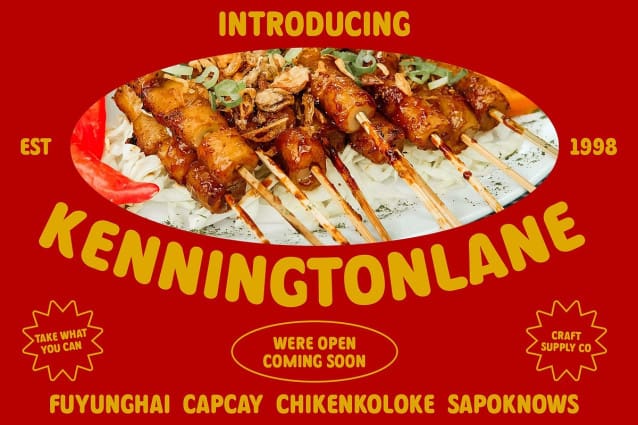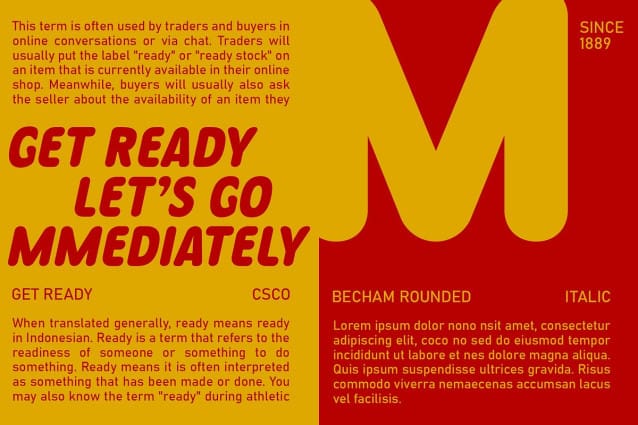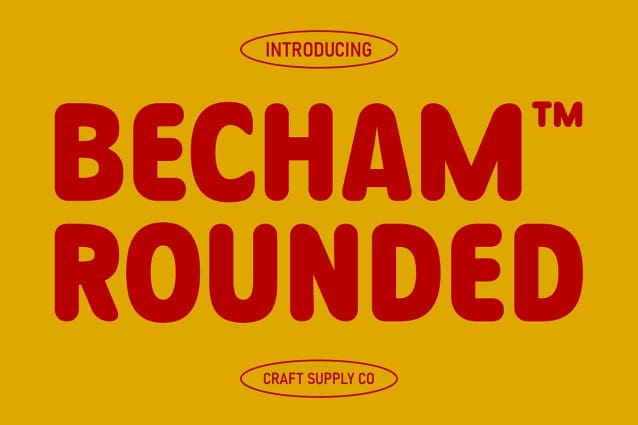
Becham Rounded Font
Becham Rounded Font: A Bold Yet Soft Sans Serif. Softness in Boldness Becham Rounded combines boldness with a touch of softness sans serif, thanks to its rounded strokes. This unique blend creates a striking visual impact while maintaining a gentle demeanor.
Low-Contrast Elegance With its low-contrast design, This font exudes understated elegance. The subtle variation in stroke weight ensures legibility without sacrificing its bold presence, making it suitable for various design applications.
Versatile Application This font’s bold yet rounded shape makes it versatile for a wide range of design purposes. From digital interfaces to print materials, its balanced aesthetics offer flexibility and adaptability.
Smooth and Rounded Aesthetics The rounded strokes of This font lend it a smooth and approachable appearance. This gentle curvature adds warmth and friendliness to its overall design, inviting engagement and readability.
Bold and Soft This font strikes a harmonious balance between boldness and softness, offering a versatile sans serif option for designers. With its low contrast, rounded strokes, and versatile application, Becham Rounded adds a touch of elegance and warmth to any design project.